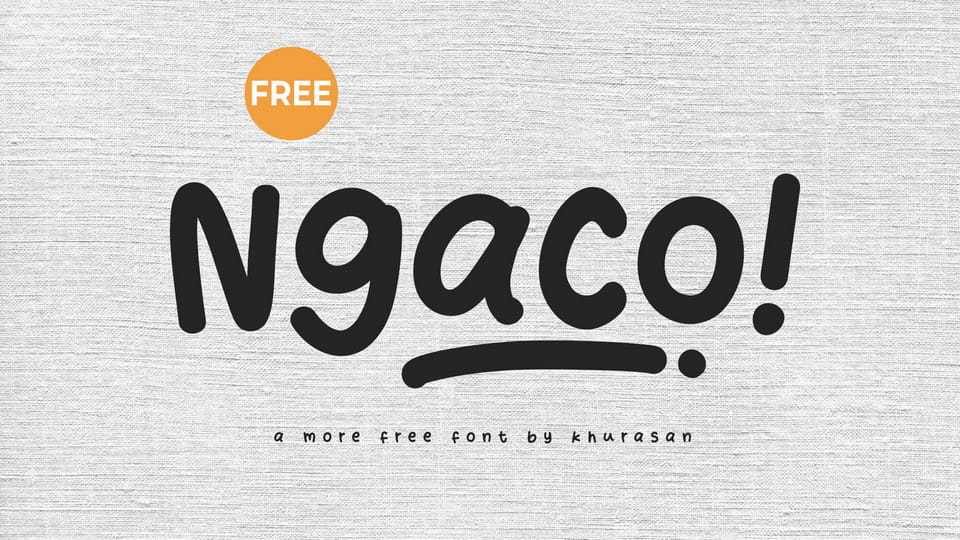
Download Ngaco font, a playful display typeface with rounded shapes and a casual, hand-drawn aesthetic. Its bold and slightly irregular letterforms create a fun and expressive look